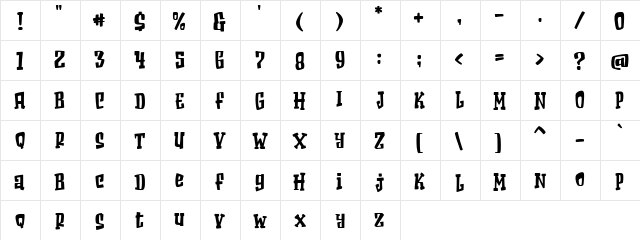
Hello Nightmare Regular
| Foundry | Blankids Studio |
| Designer | Bangkit Tri Setiadi |
Design Context for Hello Nightmare Typeface
Hello Nightmare is a composed and adaptable typeface that performs quietly and consistently across a wide range of design contexts.
Pro Tip: Use Hello Nightmare in both headline and body roles to test its range before committing to a single application.